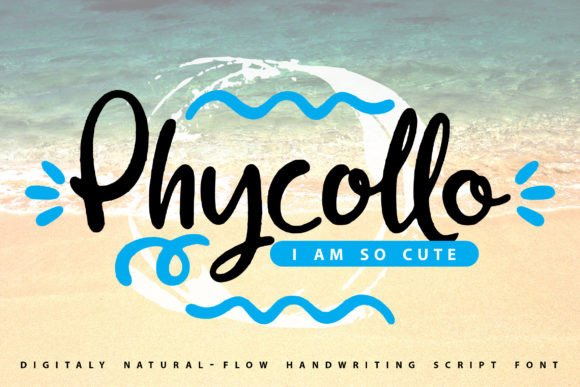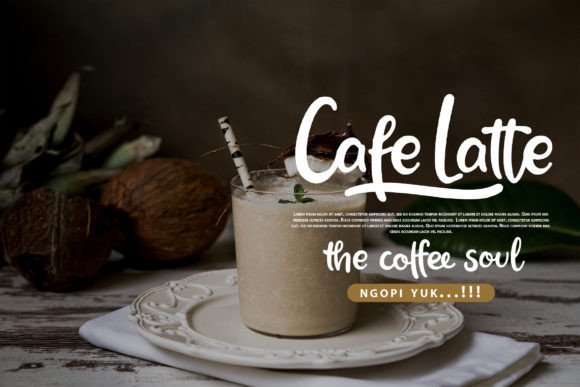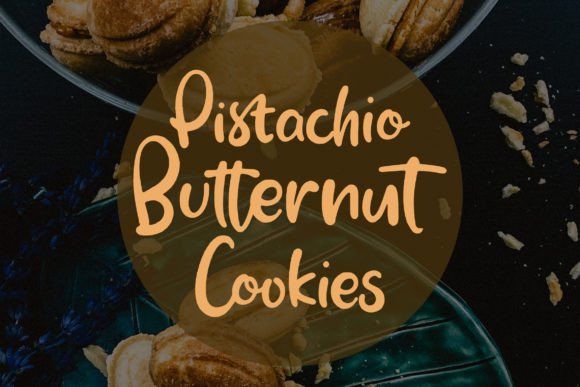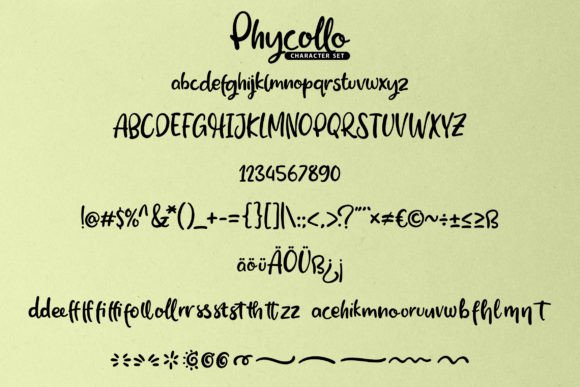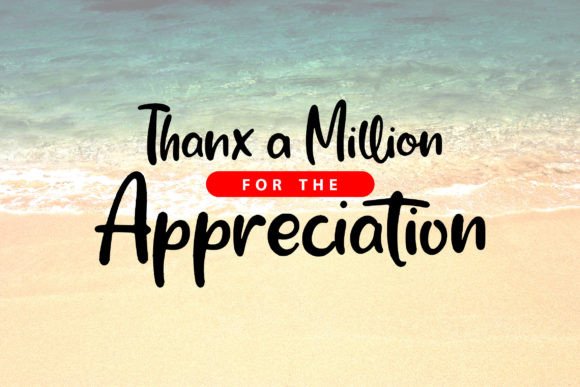
Phycollo Font
Bring Playfulness to Your Designs with Phycollo Font
Phycollo Font is a lively and playful handwritten script that adds a joyful personality to your creative projects. Inspired by classic calligraphy but infused with a fun, contemporary twist, this font brings warmth and charm wherever it’s used. Whether you’re working on wedding invitations, branding materials, or social media graphics, Phycollo Font is an excellent choice to make your designs stand out.
Versatile Applications for Phycollo Font
Phycollo Font’s natural flow and cheerful style make it suitable for a broad array of projects, including:
• Wedding and event invitations
• Business cards and branding assets
• Inspirational quotes and typography posters
• Product packaging and labels
• Social media content and digital marketing
Its playful yet elegant character ensures that your message is delivered with both clarity and personality.
Phycollo Font supports multiple languages and features well-balanced kerning, ensuring smooth reading and visual harmony across different applications.
Why Creators Love Phycollo Font
Creators appreciate Phycollo Font for its ability to combine elegance with fun. It’s perfect for projects that need a touch of personality without sacrificing professionalism. Its adaptable style lets you use it in both formal invitations and casual branding, making it a versatile asset for designers and DIY enthusiasts alike.